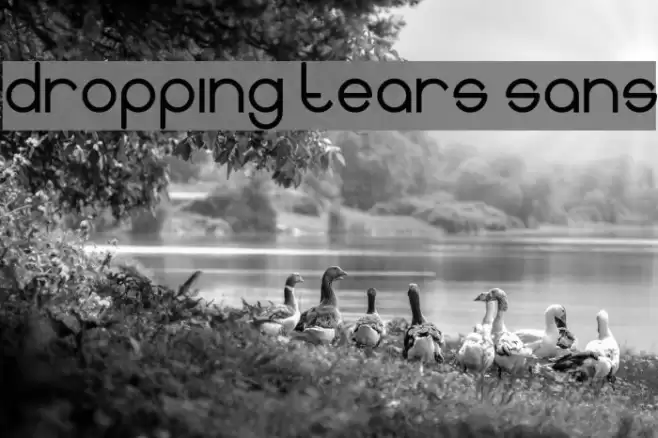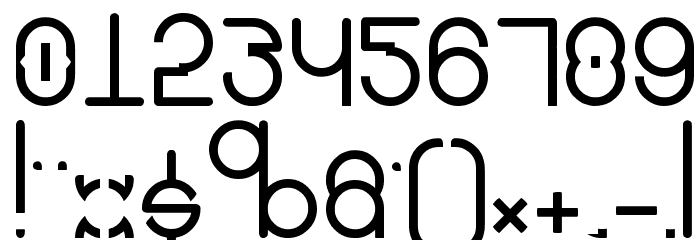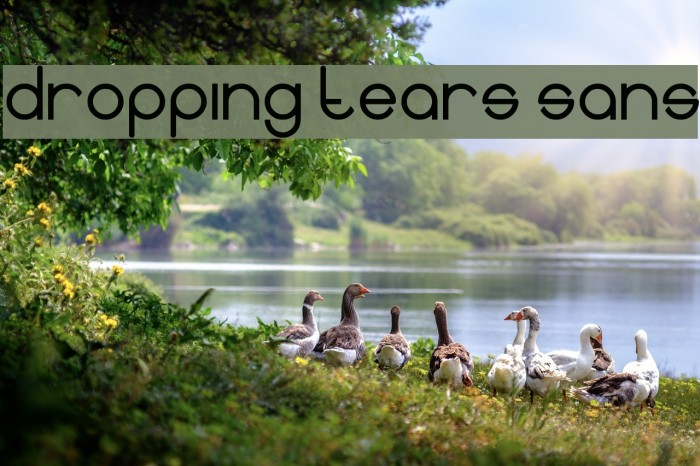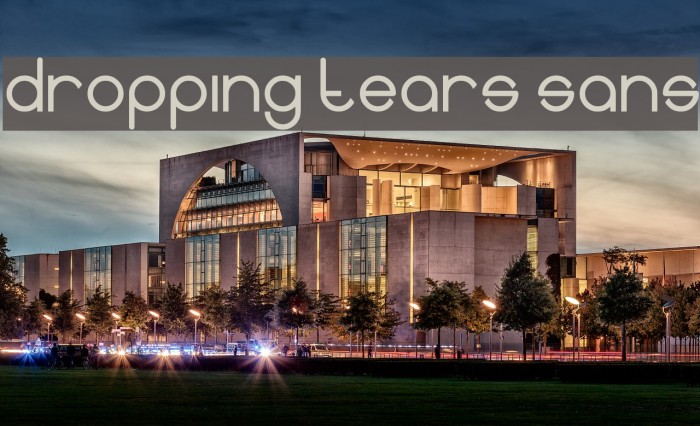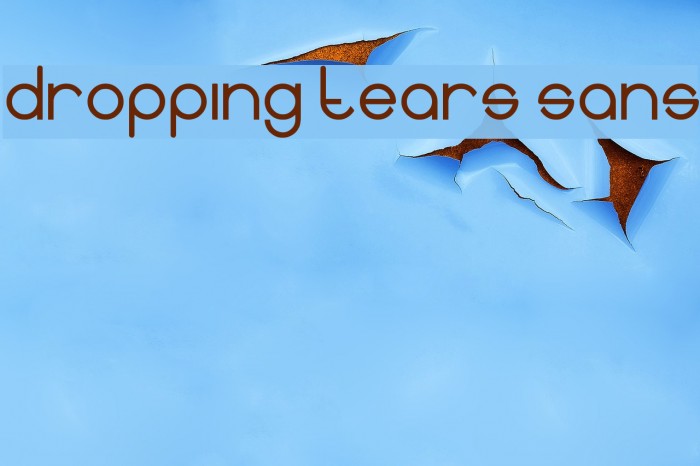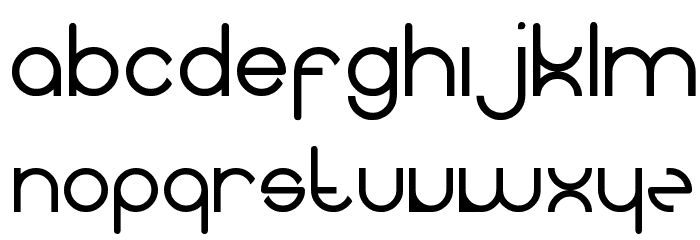
Dropping tears sans Font
Dropping tears sans Description
This font features a unique and playful design with rounded edges and a consistent stroke width, creating a friendly and approachable appearance. The characters are crafted with a modern aesthetic, emphasizing simplicity and readability. The lowercase letters have a uniform height, while the uppercase letters maintain a consistent style that complements the overall design. The numerals are clear and distinct, making them easily legible. Special characters are included, maintaining the same rounded and smooth style, which adds to the font's versatility. This font is ideal for projects that require a contemporary and informal touch.
A modern, rounded font with a playful and approachable style from Uncategorized fonts.
- Proposed Projects: Ideal for branding, children's books, casual invitations, and digital content that requires a friendly tone.
- Use Case: Headlines, Logos, Digital content